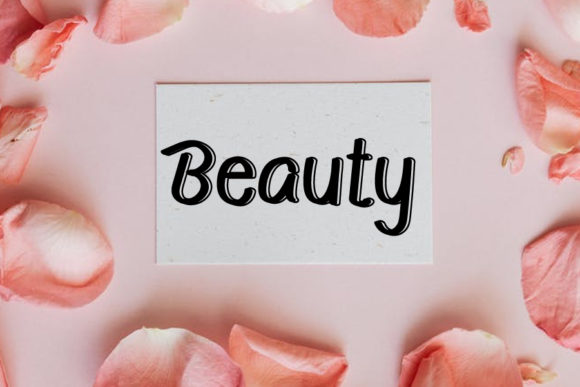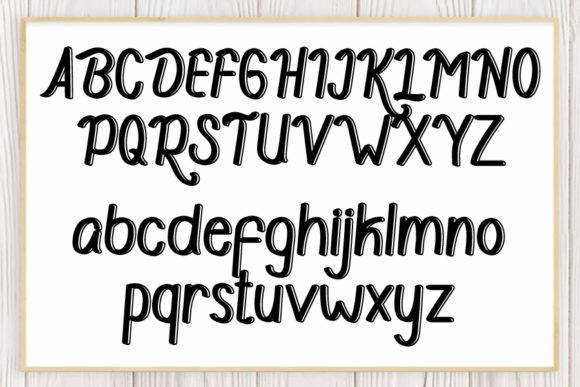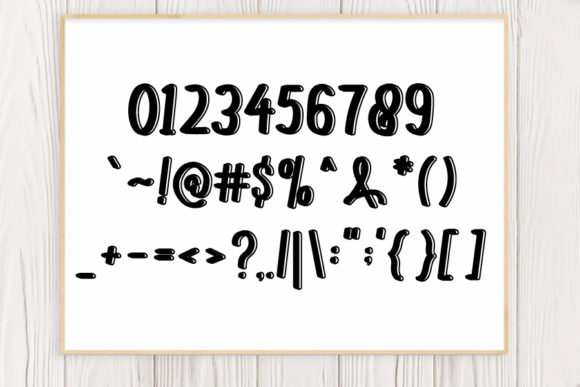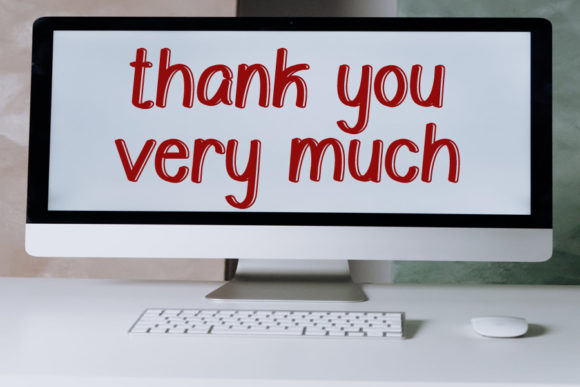
Introducing Aliyana Font: Elevate Your Designs with a Simple yet Stunning Typeface
In the world of design, typography plays a crucial role in conveying messages, evoking emotions, and creating visual identities. Among the numerous fonts available, Aliyana Font stands out as a simple and natural display font that can elevate your creations to new heights. Expertly designed to make your projects look out of this world, Aliyana Font is a versatile typeface that can add a touch of elegance and sophistication to a variety of designs.
What Makes Aliyana Font Special?
Aliyana Font is a thoughtfully crafted font that boasts a unique blend of simplicity and elegance. Its natural and effortless design makes it perfect for a wide range of applications, from branding and advertising to packaging and digital media. Whether you’re a designer, crafty DIY enthusiast, or a business owner looking to create a strong visual identity, Aliyana Font is an excellent choice.
Key Features of Aliyana Font
- Simple and Natural Design: Aliyana Font features a clean and uncomplicated design that exudes a sense of elegance and sophistication.
- Display Font: Aliyana Font is specifically designed as a display font, making it perfect for headlines, titles, and other prominent text elements.
- Versatile: This font can be used on a variety of mediums, including print, digital, and web applications.
- Easy to Read: Aliyana Font is designed to be highly legible, ensuring that your message is conveyed clearly and effectively.
Use Cases for Aliyana Font
Aliyana Font is an incredibly versatile typeface that can be used in a variety of contexts. Here are some ideas to get you started:
- Branding and Logo Design: Use Aliyana Font to create a strong and memorable brand identity that reflects your values and personality.
- Advertising and Marketing Materials: Aliyana Font is perfect for creating eye-catching headlines and titles for brochures, flyers, and other marketing materials.
- Packaging Design: Add a touch of elegance and sophistication to your product packaging with Aliyana Font.
- Digital Media: Use Aliyana Font to create stunning social media graphics, blog posts, and website headers.
Tips for Using Aliyana Font Effectively
To get the most out of Aliyana Font, here are some tips to keep in mind:
- Use it as a Display Font: Aliyana Font is designed to be used as a display font, so use it to create eye-catching headlines and titles.
- Experiment with Font Sizes: Aliyana Font looks great at a variety of font sizes, so don’t be afraid to experiment to find the perfect size for your design.
- Pair it with Other Fonts: Aliyana Font pairs well with a variety of other fonts, so try combining it with other typefaces to create a unique and interesting design.
Aliyana Font is a simple yet stunning typeface that can elevate your designs to new heights. With its natural and effortless design, versatility, and ease of use, Aliyana Font is an excellent choice for designers, crafty DIY enthusiasts, and business owners looking to create a strong visual identity. Whether you’re looking to create a brand identity, advertising materials, or digital media, Aliyana Font is a great option to consider.